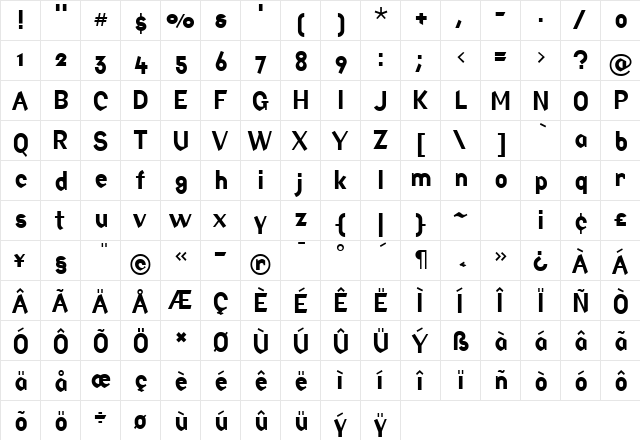
FactoryWide Regular
Design Context for FactoryWide Typeface
FactoryWide offers clean, dependable letterforms without strong stylistic allegiance, making it a practical choice for designers who need flexibility.